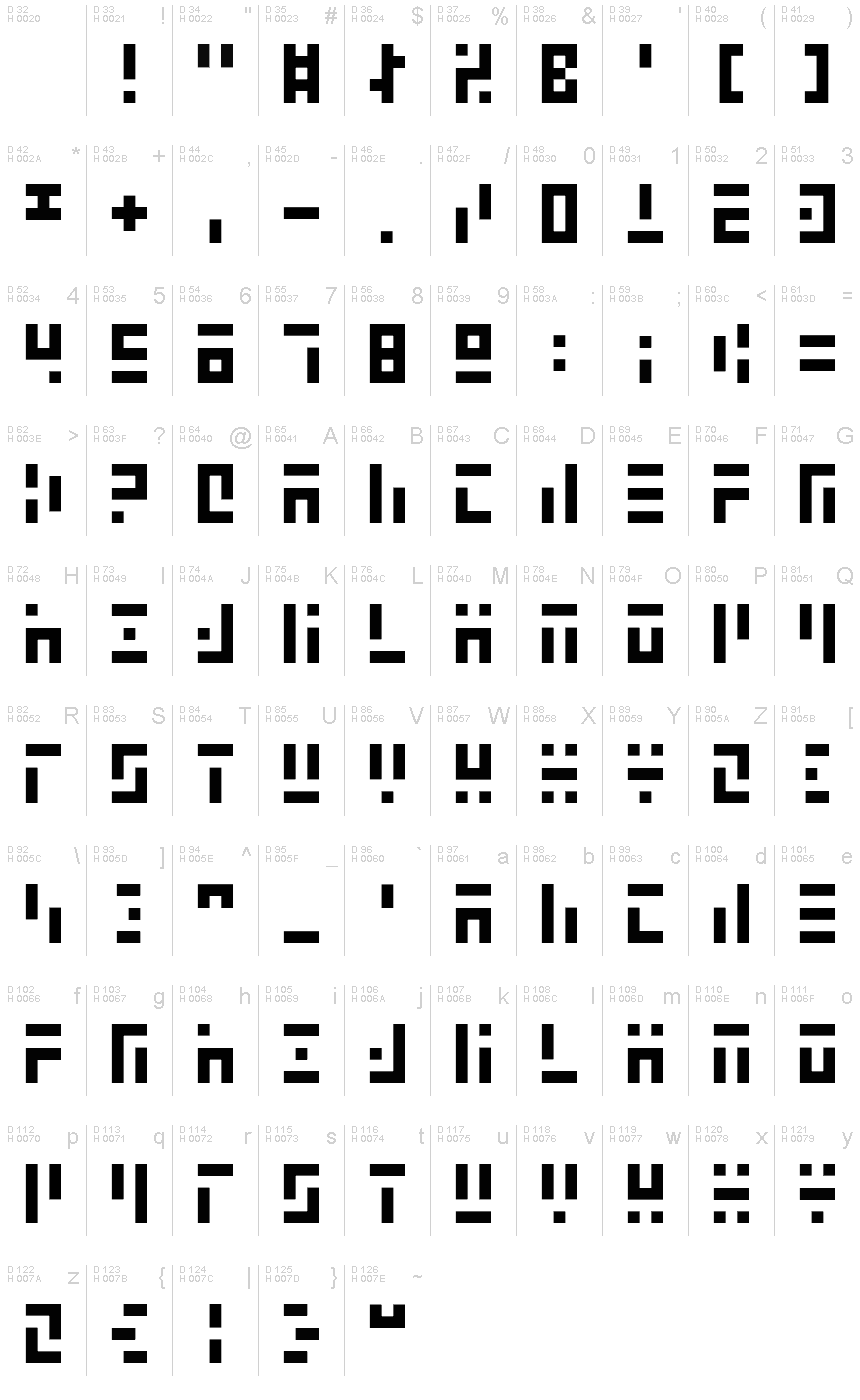
3t3-5x3
3t3-5x3 is my first product.
It's pretty difficult for understanding.
But I think it became cool one.
3t3-5x3 includes basic 1 bit character and some ligature icon.